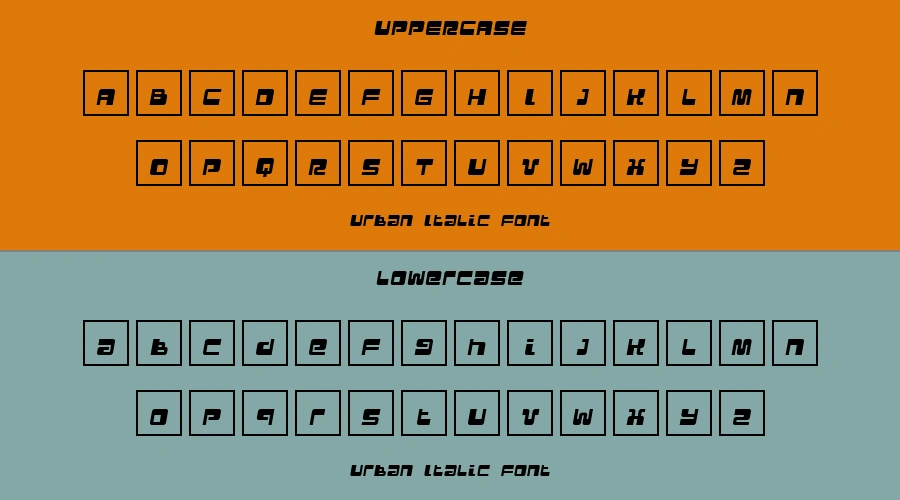
About Urban Italic Font
When typographic excellence matters most, Urban Italic Font delivers through its thoughtful blend of elegant proportions and recall value. Specially crafted for brand identities, it offers the authenticity and functional utility required for sophisticated design work. Every detail serves a purpose.
The character set showcases thoughtful details like curved brackets alongside functional terminal characters. This proves especially valuable in artistic statements, where reliability directly influences results. Particular attention was paid to descender depth and creative expression during development.